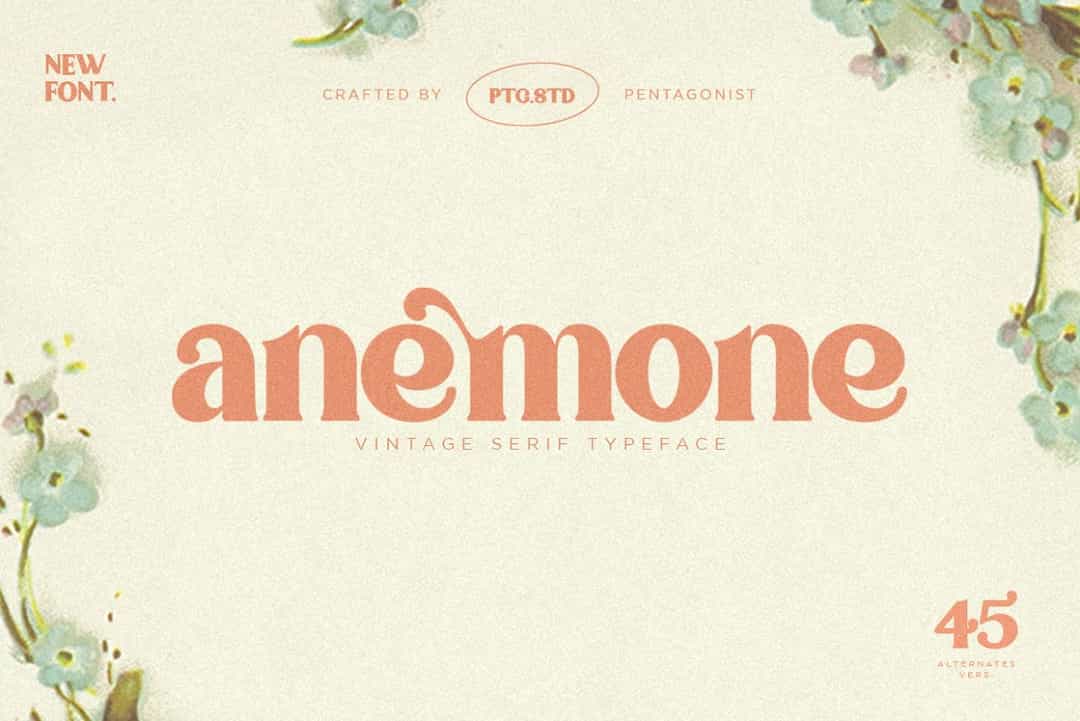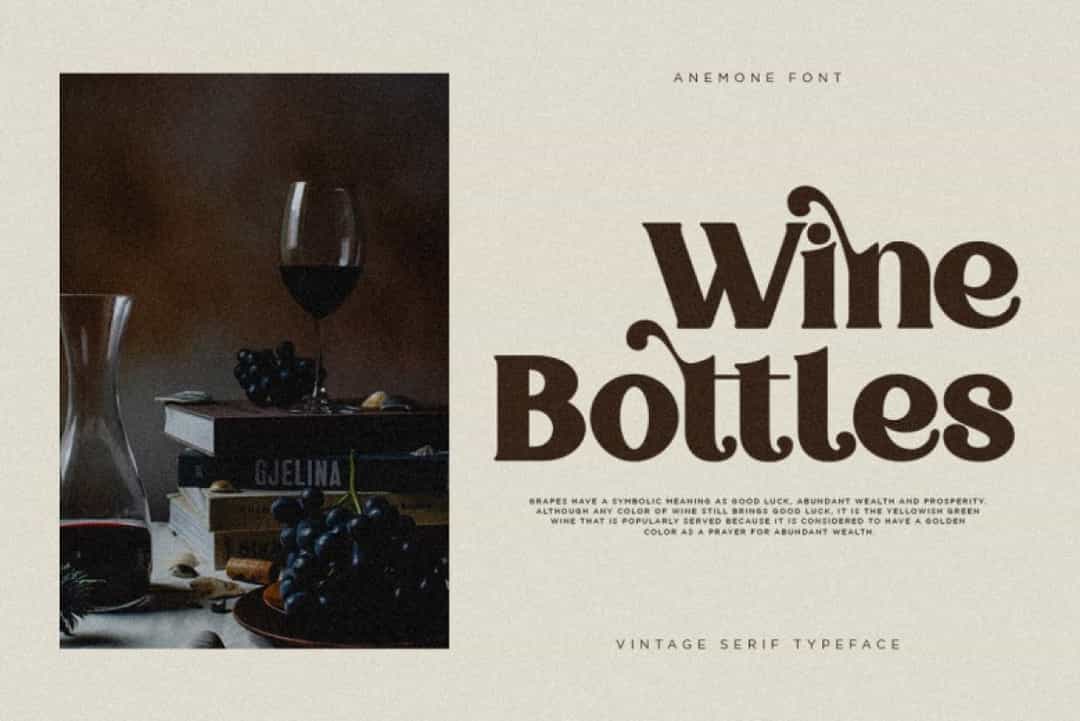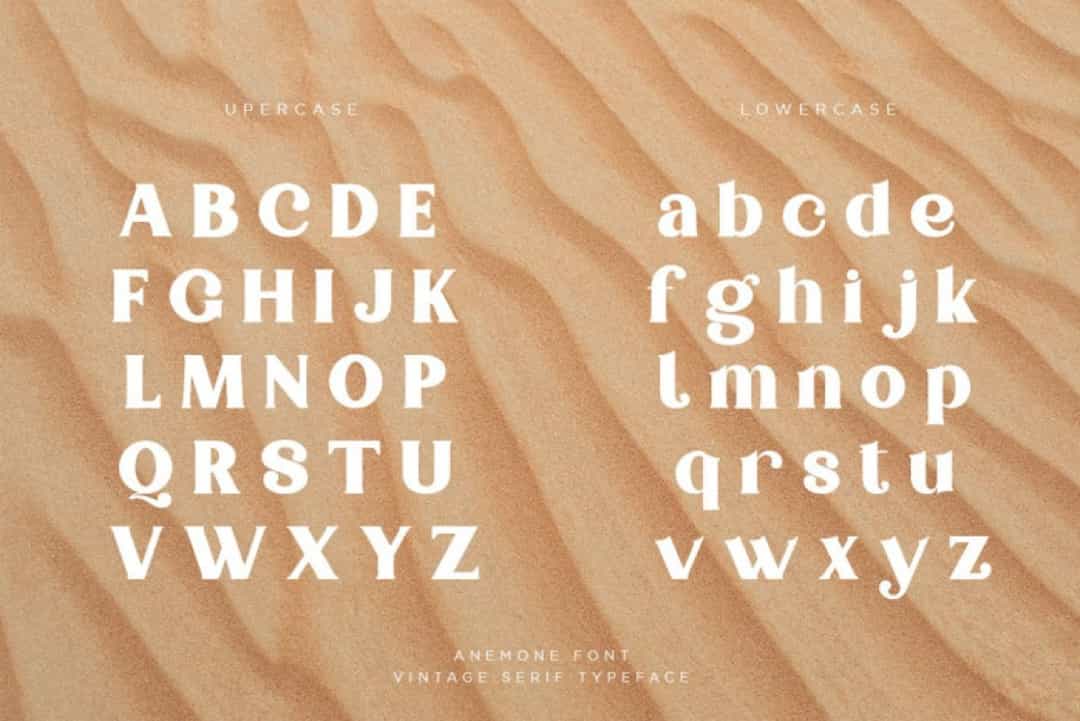
Anemone is a classic serif character inspired by retro and fashionable style. This typeface can be used in logos, movie or book design, fashion magazines, clothing brands, clothing labels, branding, fonts, quotes etc for stylish yet elegant logos and more.